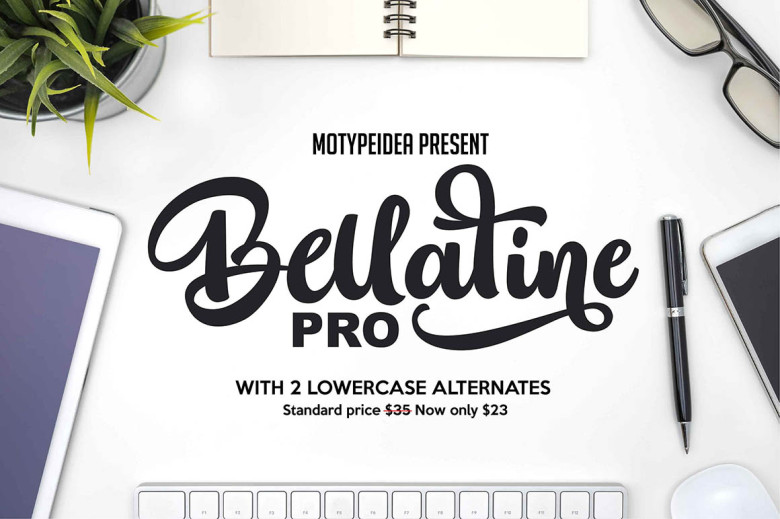
Bellatine Pro Script Font
Have fun introducing you to a new premium font kit. It will be a great typography for your new project. lntroducing Bellatine Pro Script Font! Bellatine Pro designed and shared by motypeidea. It’s handwritten script font. This font are perfect for wedding invitation or your blog. Also with their help, you can create a logo or beautiful frame for your home. Or just use for your small business, book covers, stationery and more.